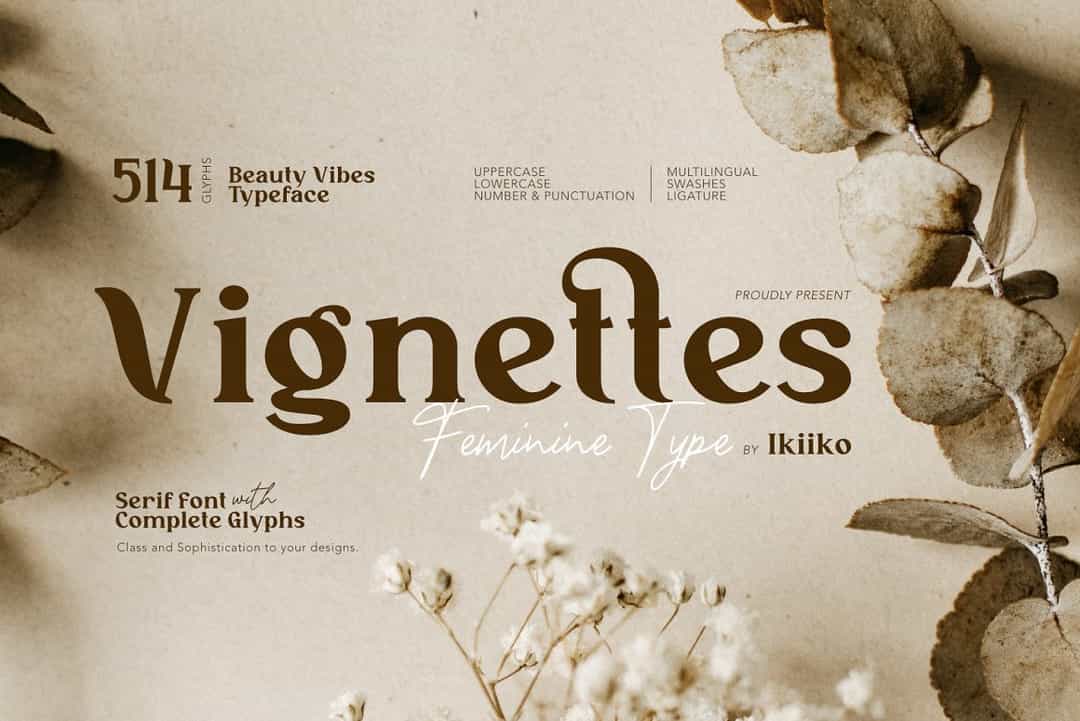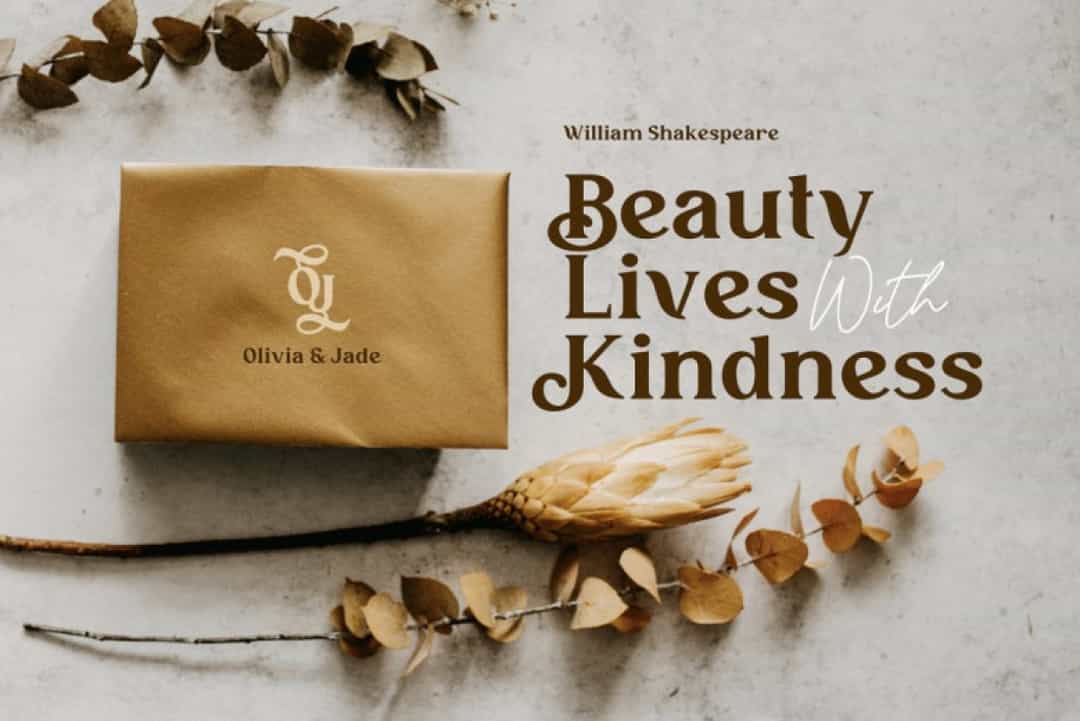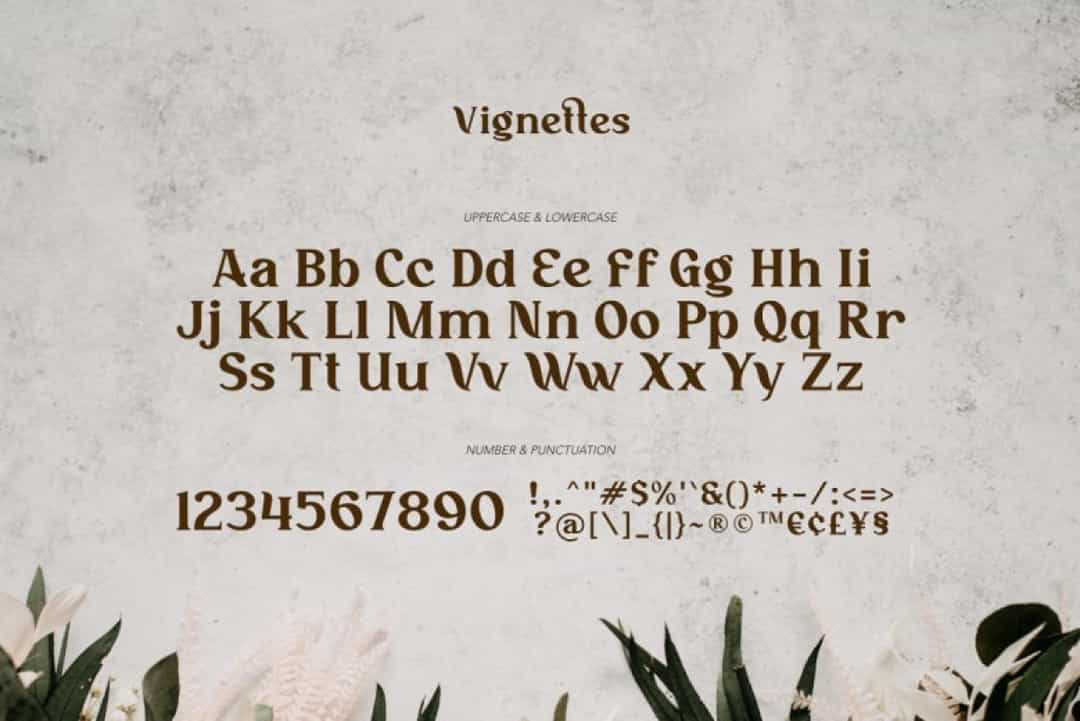
Vignettes is a classic serif typeface with distinctive design features, including large fonts with elegant, feminine forms that stand out. Choose the design style that best complements your needs and choose Vignettes as your font style of choice!